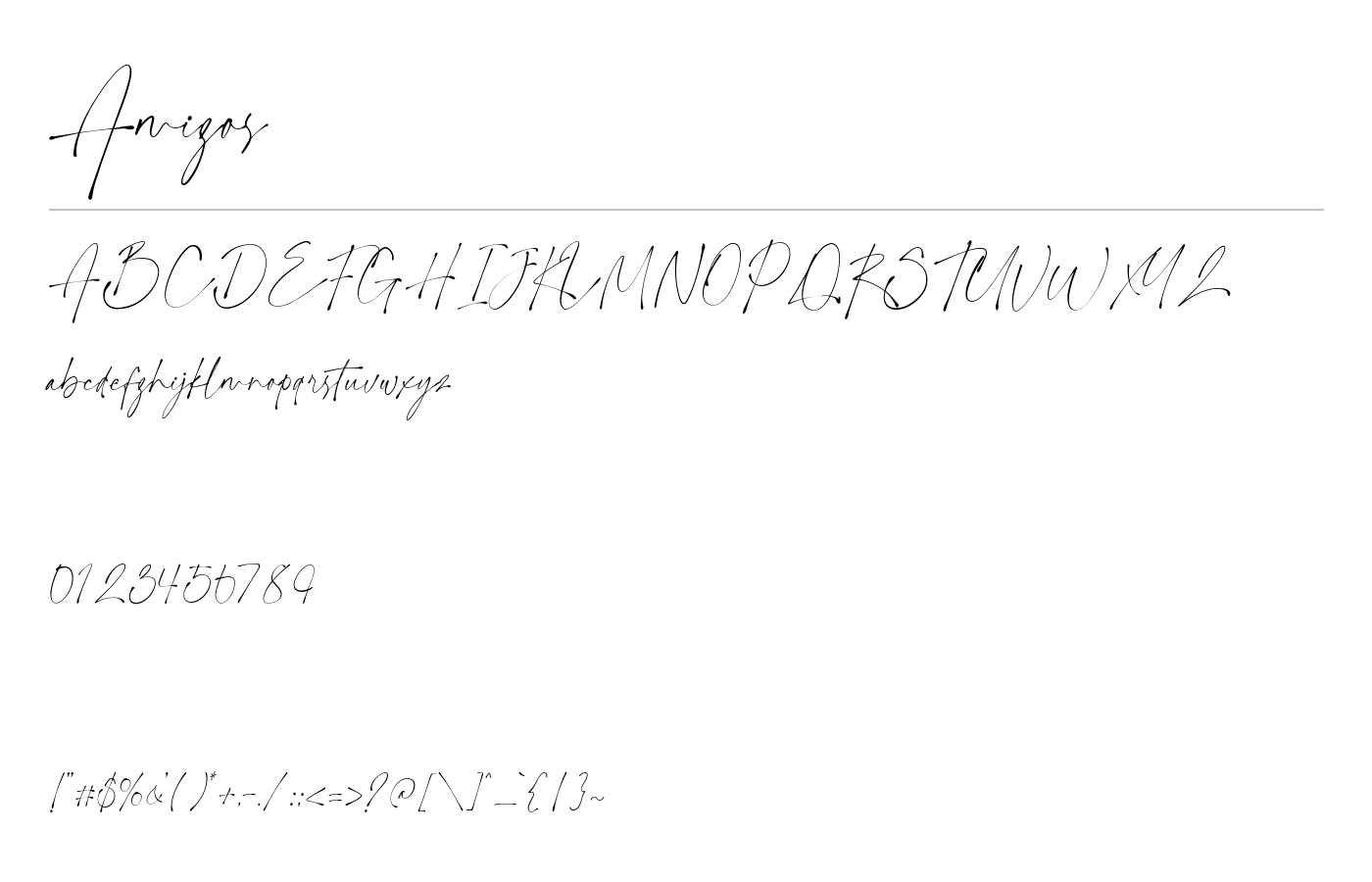
Amigos Font is a delicate, elegant script typeface that mimics natural, flowing handwriting with thin, light strokes and high contrast in letter size. It exudes a friendly and personal charm, making it ideal for invitations, branding, and creative projects that seek a modern yet intimate feel. Its slender letterforms and stylish curves work beautifully in logos, headlines, and decorative text where a sophisticated, handwritten look is desired.
Amigos Font
About Amigos Font